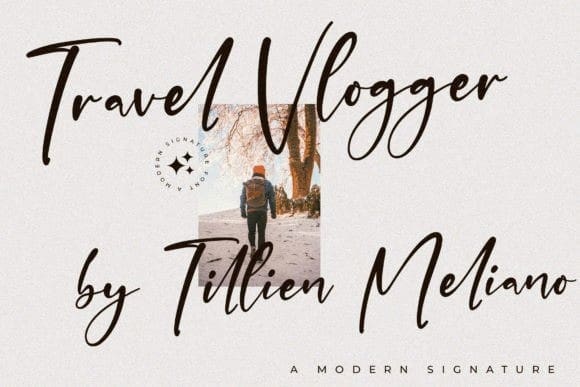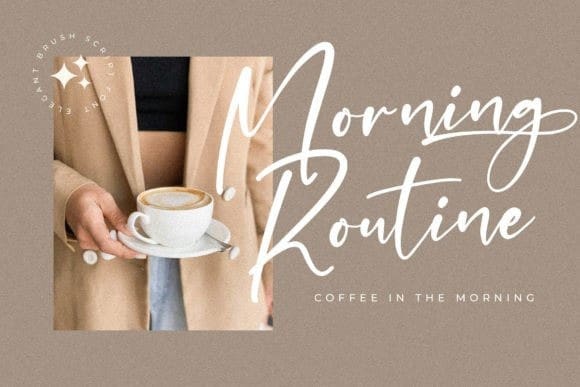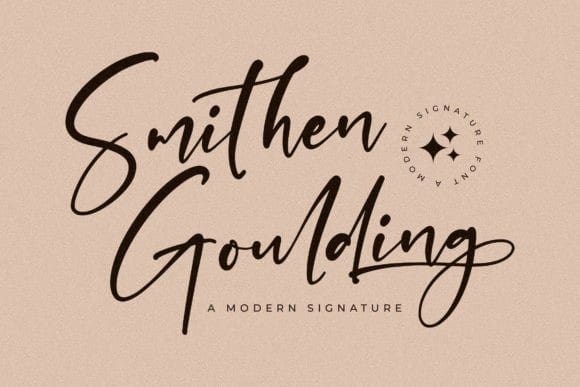
Smithen Goulding Font
Smithen Goulding Font is a dazzling script font. This font is neatly crafted and highly detailed. Whatever the topic, this font will be a wonderful asset to your font library, as it has the potential to enhance any creation.